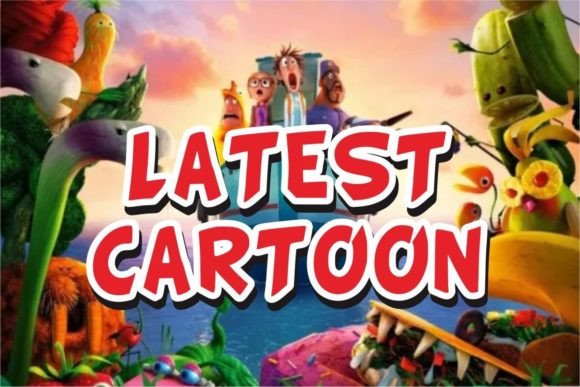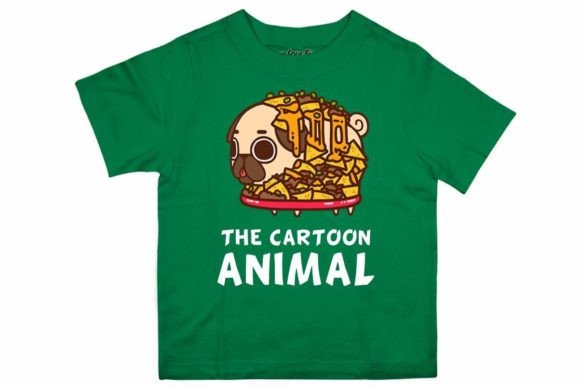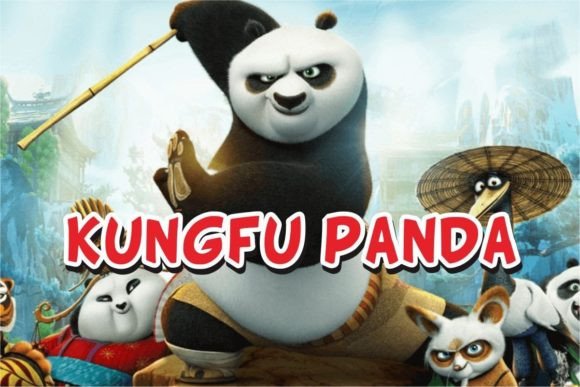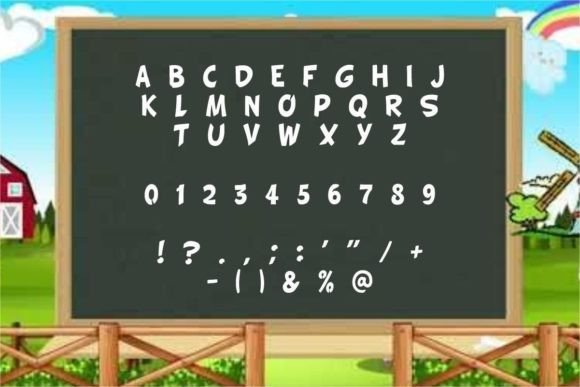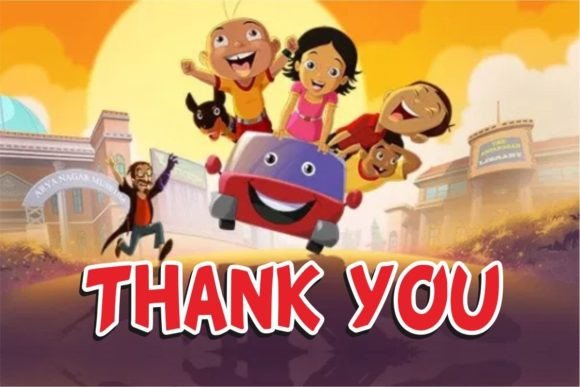
Bringing Whimsy to Your Designs: The Rise of Cartoonque Font
Do you remember the thrill of watching cartoons as a child, with their bright colors and endearing characters? For many of us, those nostalgic memories are a reminder of the power of animation to evoke emotions and spark imagination. As a designer, you can tap into that same magic with the Cartoonque Font, a modern cartoon-style display font that adds a playful touch to any project.
With its contemporary style and casual feel, the Cartoonque Font is the perfect choice for designers looking to add a lighthearted, approachable vibe to their work. Whether you’re creating animated ads, children’s cartoons, or promotional materials, this font is sure to bring a smile to your audience’s faces. Its versatility and ease of use make it a valuable addition to any designer’s toolkit.
Key Features of Cartoonque Font
- Size: The font family includes 6 different weights, ranging from Light to Bold, providing flexibility for various design applications.
- Resolution: Cartoonque Font supports high-resolution displays, making it suitable for use in digital media, such as web design, mobile apps, and social media graphics.
- Unique Characteristics: The font features a playful, hand-drawn style with bold lines and rounded shapes, creating a whimsical and engaging visual effect.
- Language Support: Cartoonque Font supports a wide range of languages, including Latin, Cyrillic, and Greek scripts, making it a versatile choice for international design projects.
- Scalability: The font is designed to be highly scalable, allowing it to maintain its clarity and legibility at various font sizes and resolutions.
Cartoonque Font Review
Overall, I think Cartoonque Font is a fun and playful addition to any design project. ✨ The font’s bold lines and exaggerated shapes give it a charming, hand-drawn feel that’s perfect for projects that need a bit of whimsy. The font’s versatility shines through in its ability to be used for a wide range of applications, from children’s books to social media graphics.
- Cartoonque Font works well for projects that need a bold, eye-catching look.
- Its playful feel makes it a great choice for branding and marketing materials.
- The font’s versatility means it can be used across a wide range of applications.
However, there are a few limitations to keep in mind. ⚠️ For one, the font may be a bit too bold for some projects, making it difficult to read at small sizes. Additionally, the font’s exaggerated shapes may not be suitable for projects that require a more serious or professional tone.
Overall, I think Cartoonque Font is a great choice for designers who want to add a bit of fun and personality to their projects. While it may not be the best choice for every project, it’s definitely a valuable addition to any designer’s toolkit.
The Cartoonque Font is perfect for:
- Playful advertisements
- Whimsical blog posts
- Custom invitations
Tips for Getting the Most Out of Cartoonque Font
For the best results, use the Cartoonque Font in combination with bold colors and playful graphics. Experiment with different font sizes and styles to create a unique look.